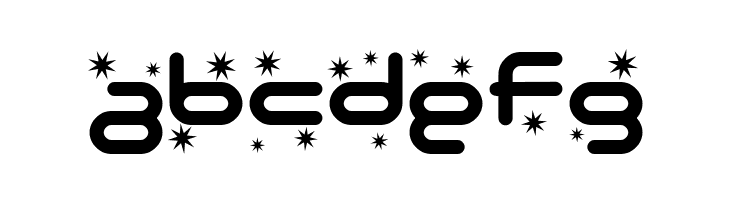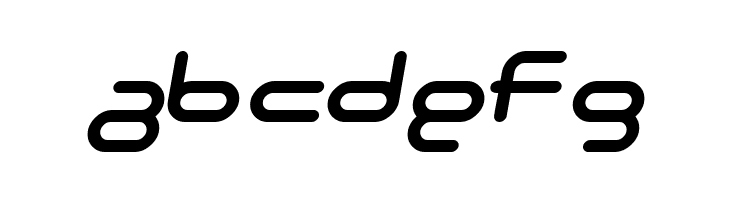
Republika IV Cnd - Shatter Italic Font
- Font: Republika IV Cnd - Shatter Italic
A futuristic italic font with rounded characters and a sleek, modern design.